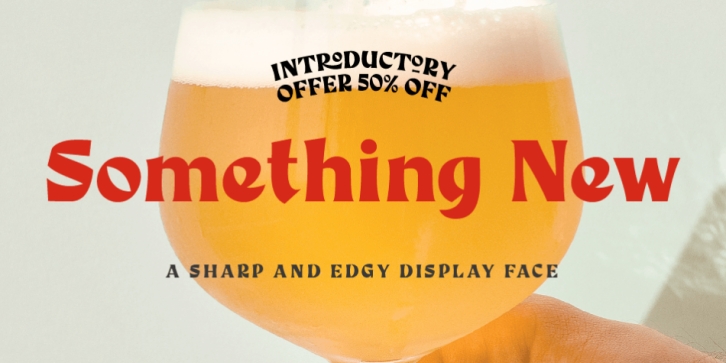
Designed by Adam Greasley, Something New is a display serif and serif font published by wearecolt.
Something New has been designed with logo designers and typographers firmly in mind. This feature-packed display font is a perfect addition to your design arsenal, ready for your next logotype, heavy heading or beer label.
“A stylish mix of serif and blackletter”
Stylistic sets & alternatives.
Discretional ligatures.